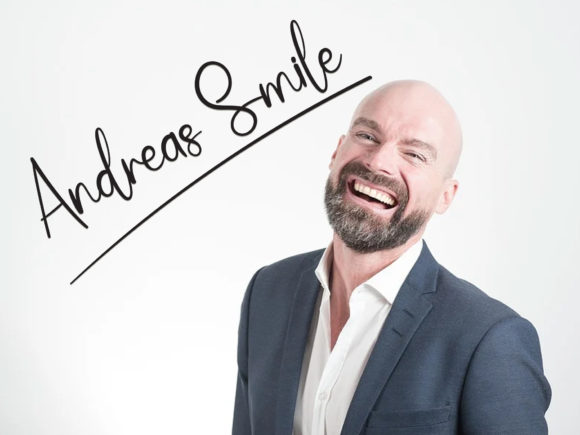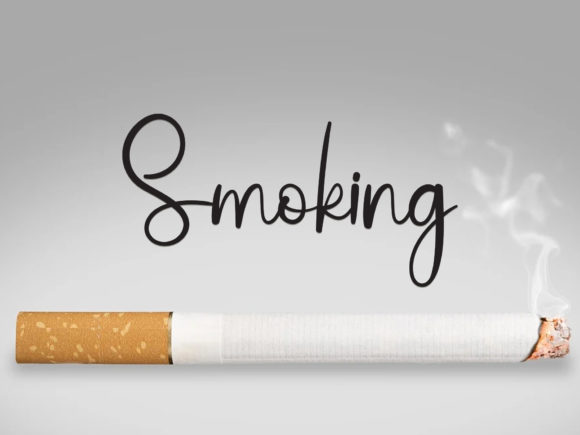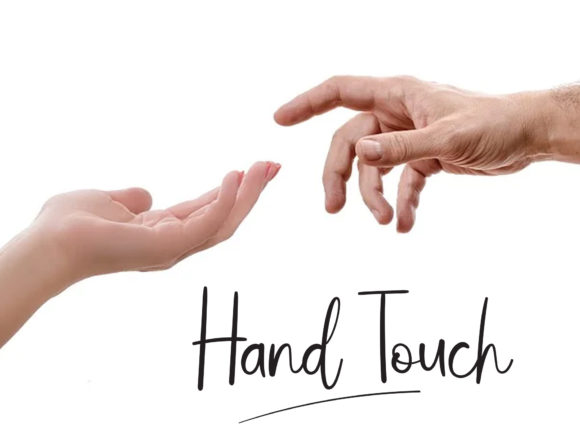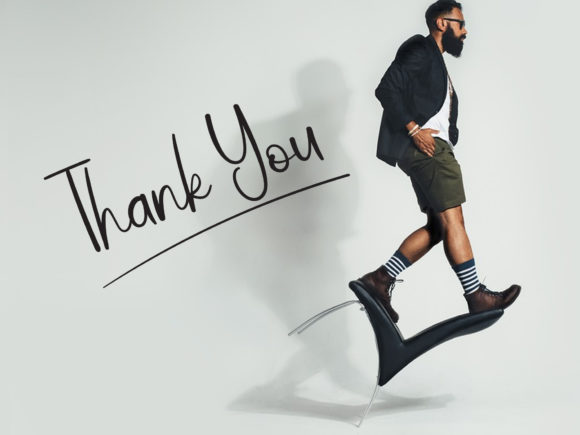
About Malika Font
Malika is a refined and delicate handwritten font that has been meticulously designed to bring a touch of cool and uniqueness to your designs. Its intricate details and thoughtful craftsmanship make it a versatile choice for a variety of projects, allowing you to create captivating and distinctive designs.
With Malika, you have the opportunity to craft stunning letters, invitations, and more with a personal and artistic flair. Its handwritten nature adds an authentic and human touch to your work, making it perfect for conveying heartfelt messages and creating memorable experiences for your audience.
The font’s versatility extends to its applicability in various contexts. Whether you’re working on invitations for special occasions, food product packaging that requires a personalized touch, or any other project that demands a blend of elegance and creativity, Malika can rise to the occasion.
The elegant curves and unique strokes of Malika add a sense of sophistication to your designs, making them stand out with a refined aesthetic. The font’s delicacy invites readers to engage with your content, creating a connection that goes beyond the visual aspect and resonates with the emotions you intend to convey.
By incorporating Malika into your projects, you can infuse them with a distinct character that reflects your attention to detail and commitment to delivering high-quality work. The font’s adaptability makes it suitable for a wide range of design applications, allowing you to explore different avenues while maintaining a consistent and impressive style.
Whether you’re working on handwritten notes, invitations for events, or the packaging for a line of specialty food products, Malika has the potential to add a touch of elegance and uniqueness that sets your creations apart. Its delicate charm and carefully designed features make it a valuable asset in your design toolkit, enabling you to bring your visions to life in a captivating and beautiful way.